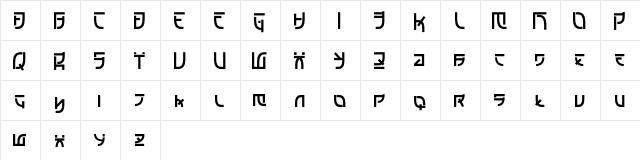
Japan ramenten demo Regular
| Foundry | Kong font |
| Designer | Kong font |
Design Context for Japan ramenten demo Typeface
Japan ramenten demo is a composed and adaptable typeface that performs quietly and consistently across a wide range of design contexts.